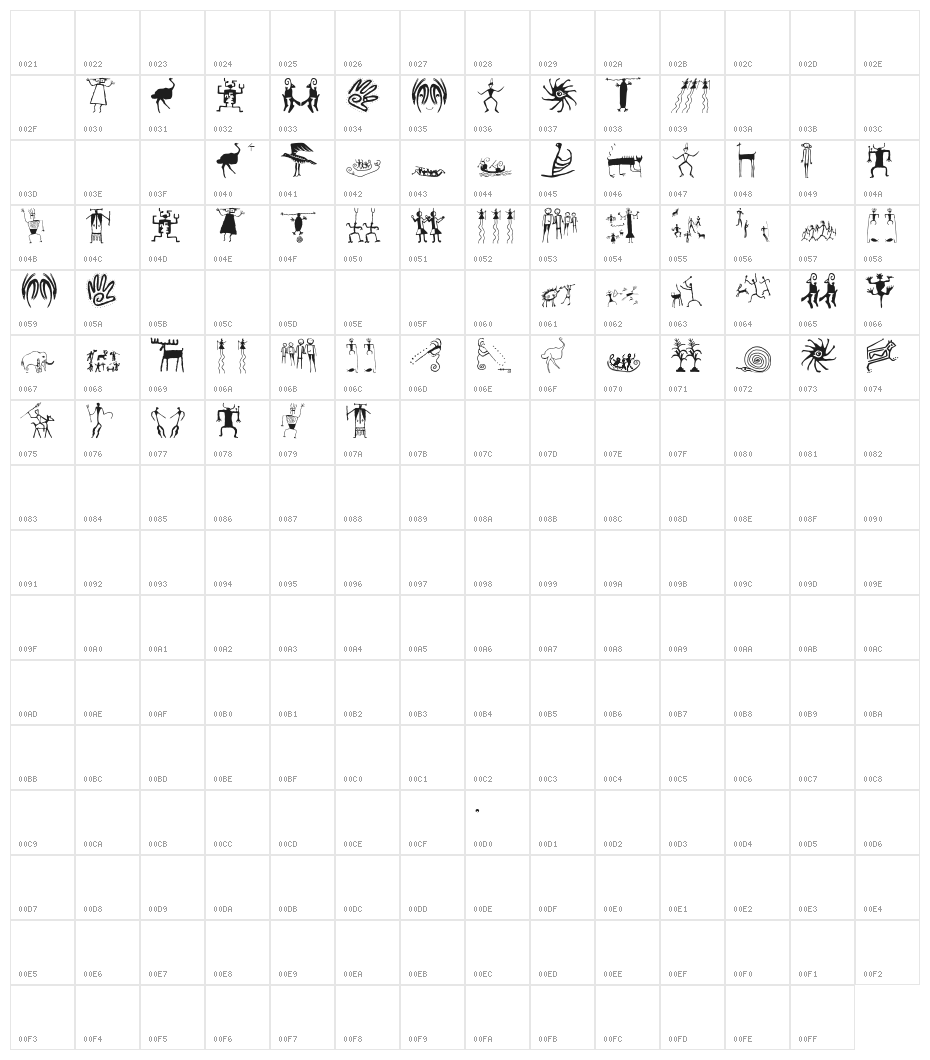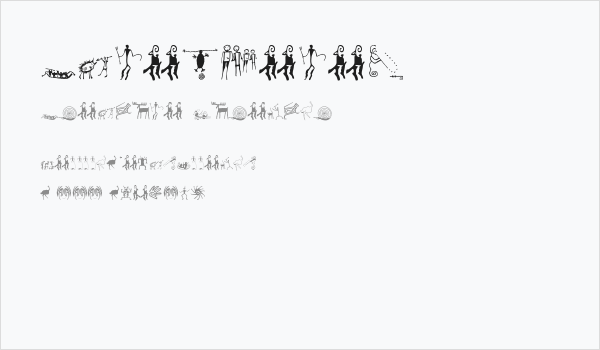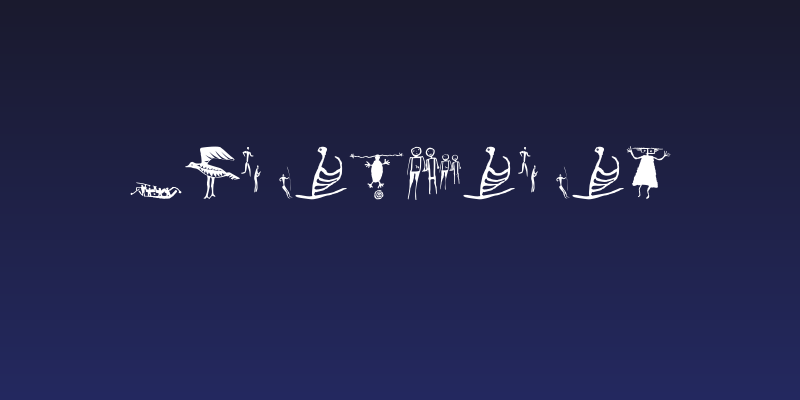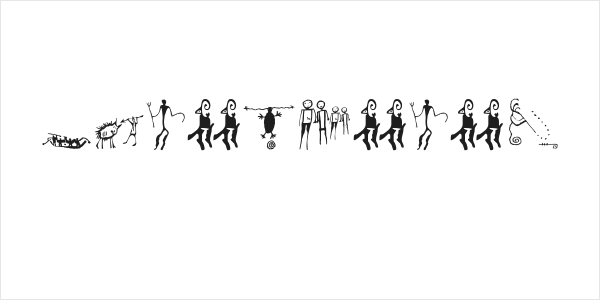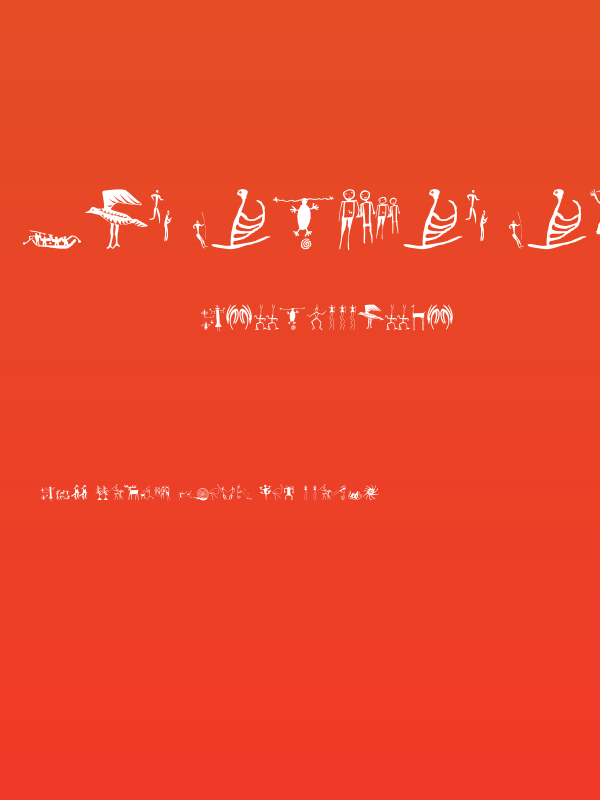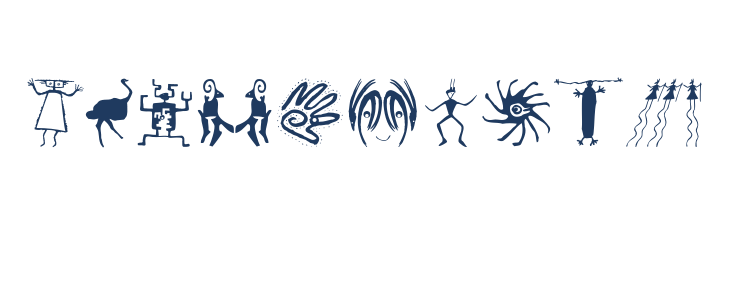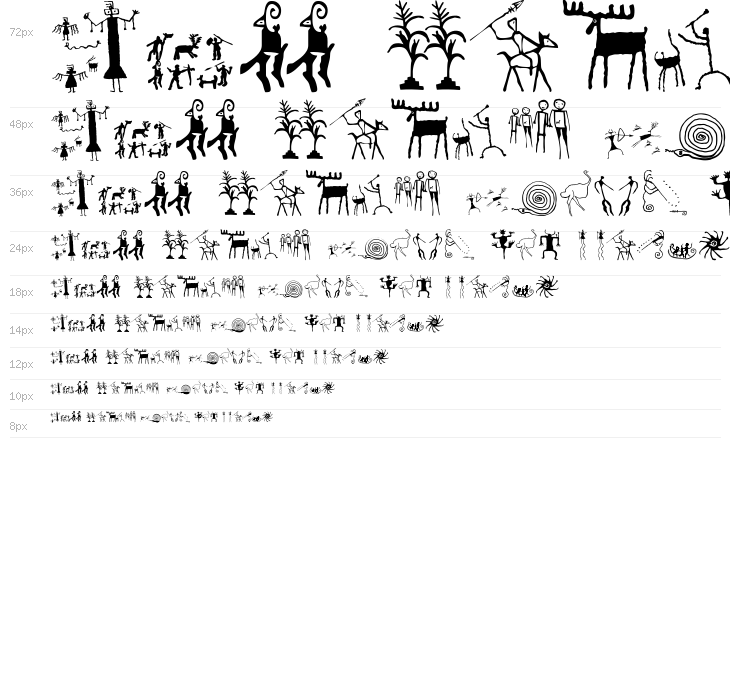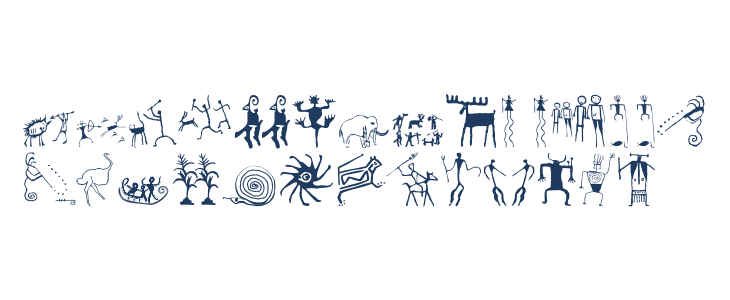
CaveOSeven Font
CaveOSeven Description
This collection of symbols resembles ancient cave paintings, featuring a variety of human and animal figures, abstract shapes, and intricate patterns. Each symbol is unique, capturing a sense of movement and storytelling reminiscent of prehistoric art. The figures are depicted in a simplistic yet expressive style, with bold lines and minimal detail, evoking a sense of mystery and history. The characters are arranged in a way that suggests a narrative or sequence, with each symbol contributing to a larger story. The overall aesthetic is both primitive and artistic, offering a glimpse into ancient cultures and their forms of communication.
| Use Case | Logos, Artistic projects, Educational materials |
| Proposed Projects | Ideal for projects related to history, anthropology, or cultural storytelling. Suitable for educational materials, museum exhibits, or artistic endeavors that aim to evoke a sense of ancient times. |